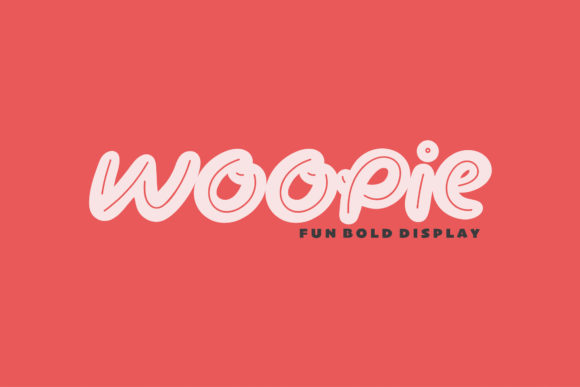
**Introducing Woopie Font: The Ultimate Expression of Joy and Creativity**
Prepare to embark on a captivating typographic journey with Woopie Font, an extraordinary display font crafted by the renowned Fontana Studio. This playful and chunky lettered masterpiece is designed to ignite your imagination and inspire you to create projects that evoke pure joy and leave lasting memories.
**A Font That Radiates Positivity**
Woopie Font possesses an infectious energy that effortlessly transforms any design into a celebration. Its charming handwritten style brings a touch of whimsy and lightheartedness to your creations, making them irresistible to the eye. Whether you're crafting personal invitations, designing cheerful posters, or enhancing your social media presence, Woopie Font will infuse your work with an unmistakable sense of optimism and delight.
**A Font that Inspires Creativity**
Woopie Font is more than just a font; it's an invitation to unleash your inner creativity. With its diverse range of ligatures and glyphs, this font empowers you to experiment with unique character combinations and create captivating designs that truly reflect your individuality. Allow Woopie Font to ignite your imagination and guide you towards creations that amaze and inspire.
**Innovative and Accessible**
Woopie Font is meticulously encoded to ensure seamless integration and effortless access to its extensive collection of glyphs and ligatures. This user-friendly feature allows you to effortlessly incorporate stunning embellishments into your designs, adding an extra layer of sophistication and charm to your projects.